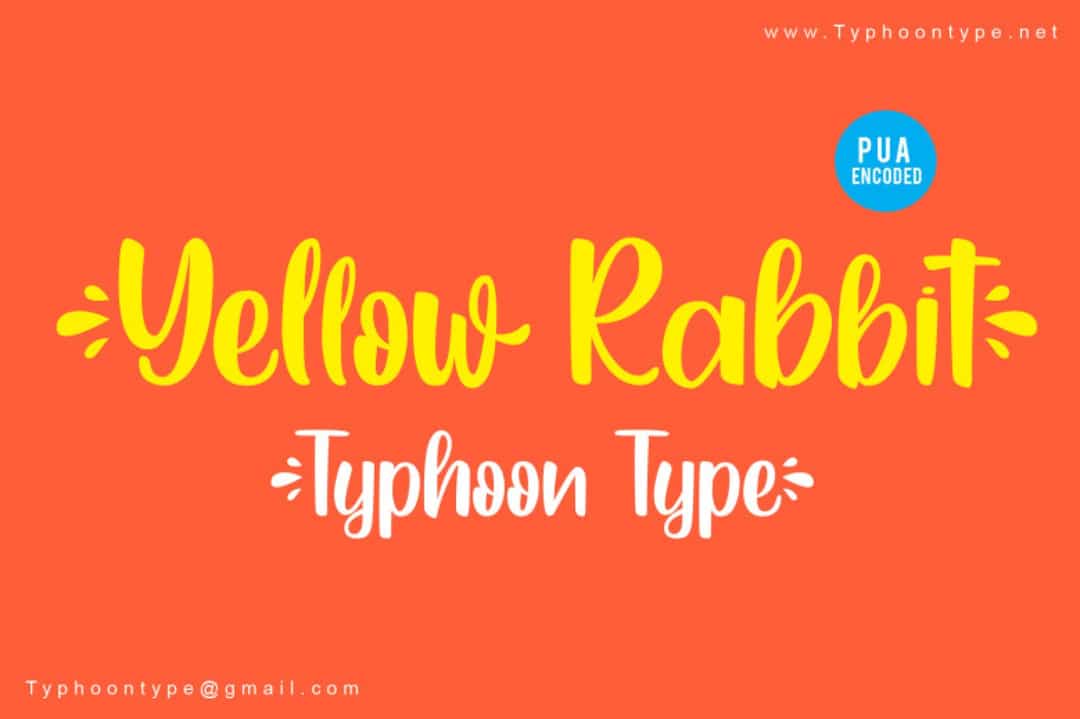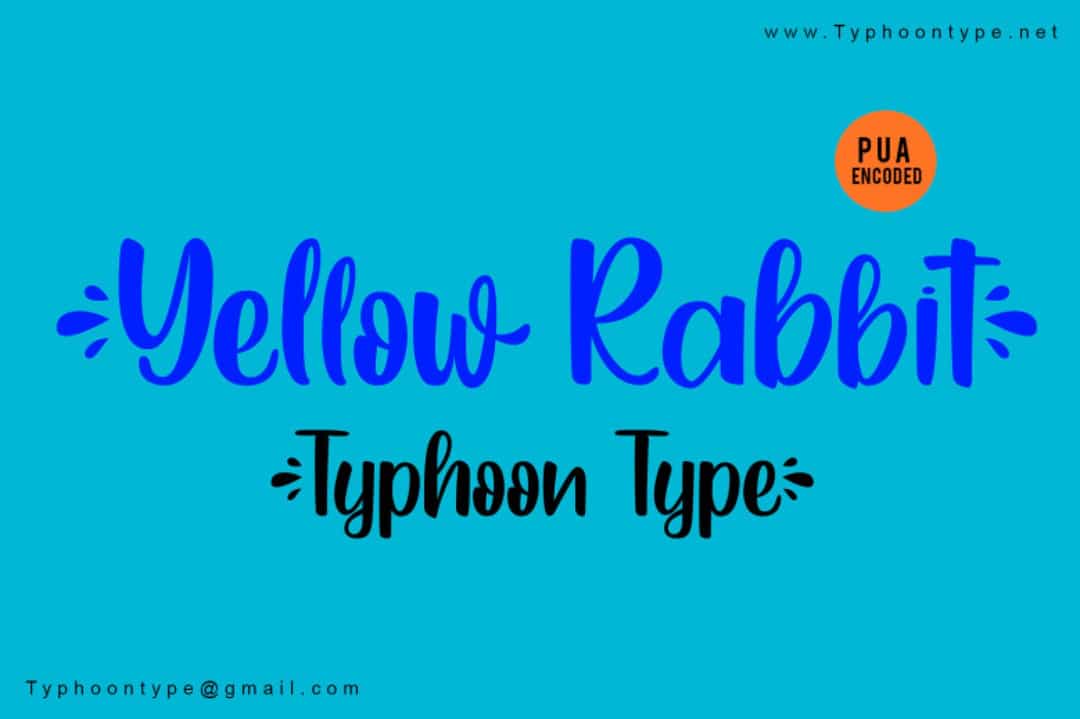
Yellow Rabbit is a cute yet simple handwritten font with a very welcoming feel to it and very easy to read. It is perfect for these, branding, logos, social media posts, greeting cards, and many others!